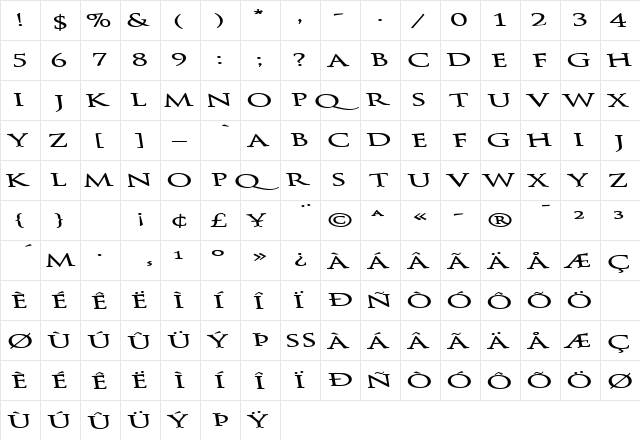
BathingBeauty66 Bold Font Preview
BathingBeauty66 Bold
Design Context for BathingBeauty66 Typeface
BathingBeauty66 offers clean, dependable letterforms without strong stylistic allegiance, making it a practical choice for designers who need flexibility. Its bold stroke weight gives it real presence on the page.